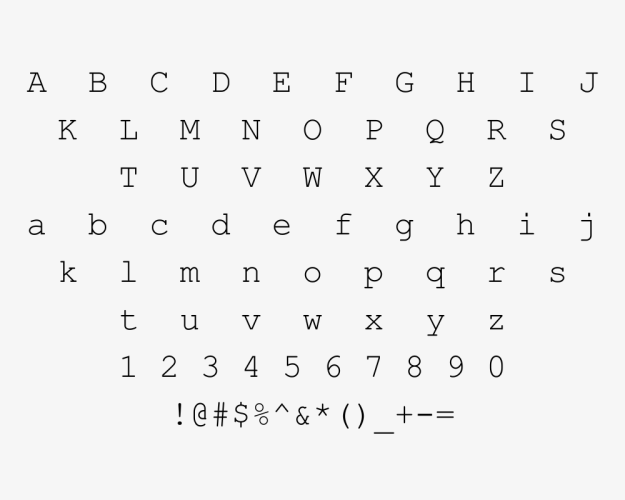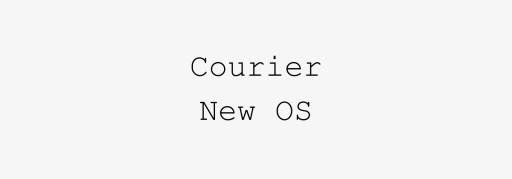
Courier New OS Font
Courier New OS is a classic typewriter font with equal spacing. Moreover, each letter takes up the same width on the page. Howard “Bud” Kettler made the first Courier font in 1955 for IBM. Additionally, Monotype later updated it as Courier New for computers. The font looks like text from an old typewriter. Therefore, it gives your work a clean and classic style.
This font is perfect for writing code and movie scripts. Furthermore, it works great for technical papers and data tables. The equal spacing keeps everything lined up in neat rows. Consequently, coders and writers use it every day. As a result, your text looks neat and easy to read.
Courier New OS Font gives long-form text a classic, trustworthy rhythm — ideal for magazine spreads, annual reports and book interiors.
Pair Courier New OS Font with generous letter-spacing for wordmarks in fashion, hospitality, wine and jewellery branding.